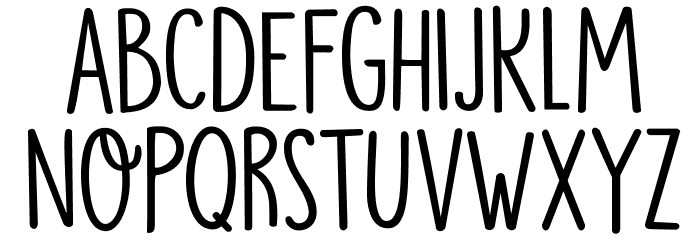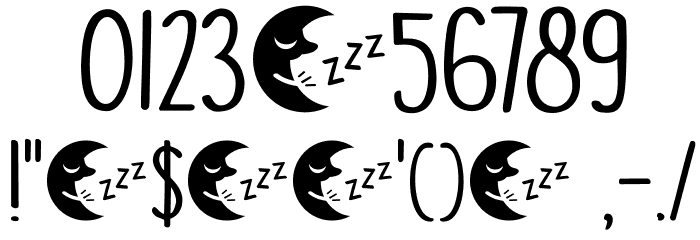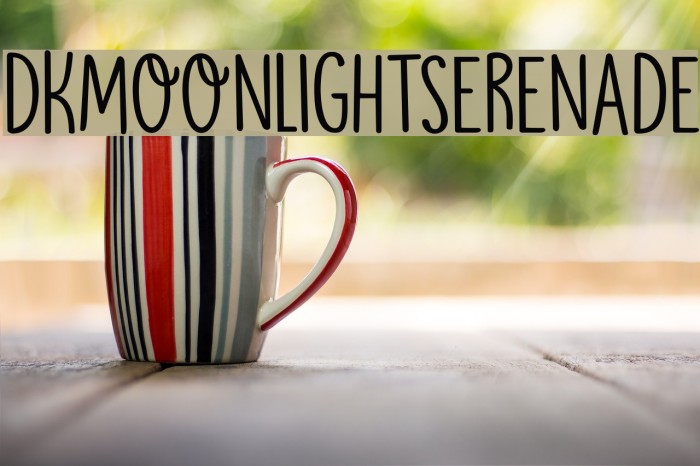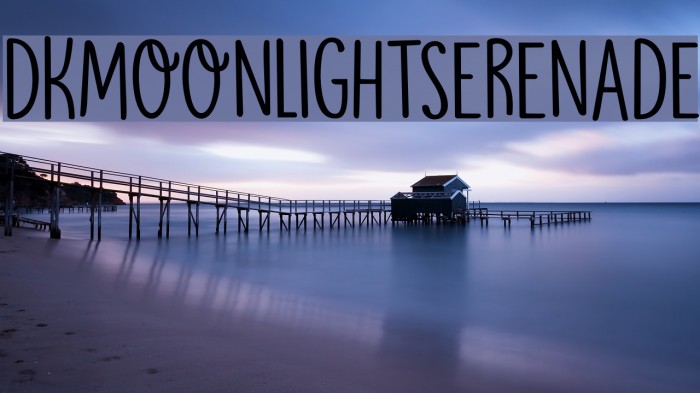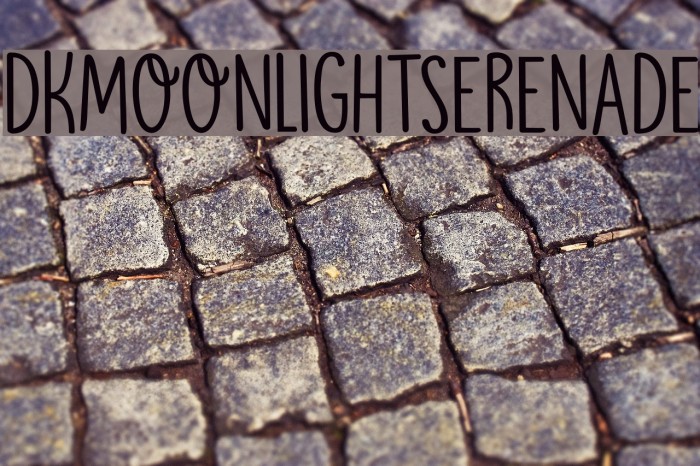
DKMoonlightSerenade Font
This playful and whimsical font features tall, narrow characters with a hand-drawn aesthetic. The letters have a casual, friendly appearance, with slightly irregular strokes that add to its charm. The uppercase and lowercase letters maintain a consistent style, while the numbers and special characters, including a unique moon and 'zzz' symbol, enhance its playful nature. The font's overall look is approachable and fun, making it suitable for creative and informal projects.
A playful, hand-drawn font with tall, narrow characters and whimsical symbols.
- Proposed Projects: Ideal for children's books, greeting cards, playful branding, and creative posters.
- Category: Handwritten
- Width: Condensed
- Overall Style: Whimsical
- Use Case: Headlines, Logos, Creative projects